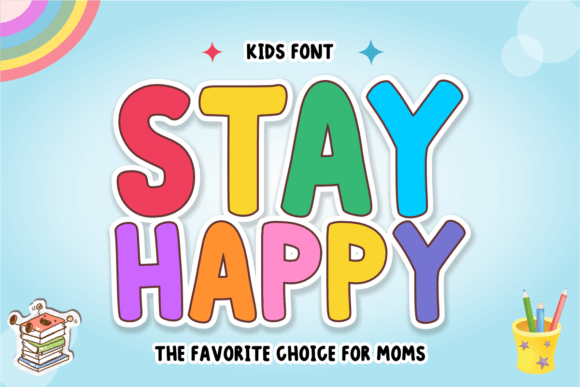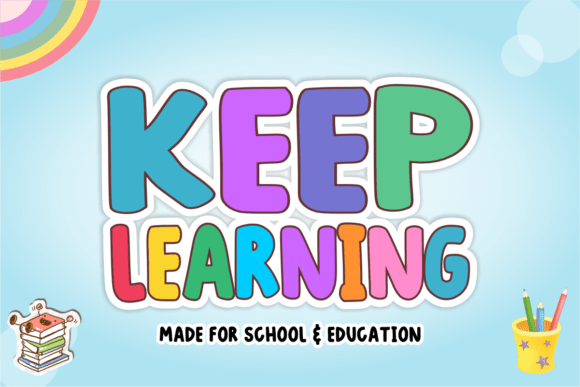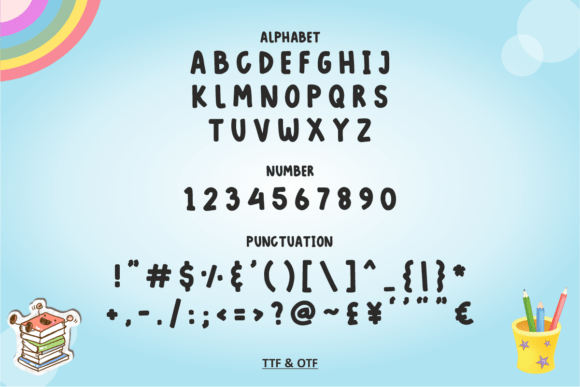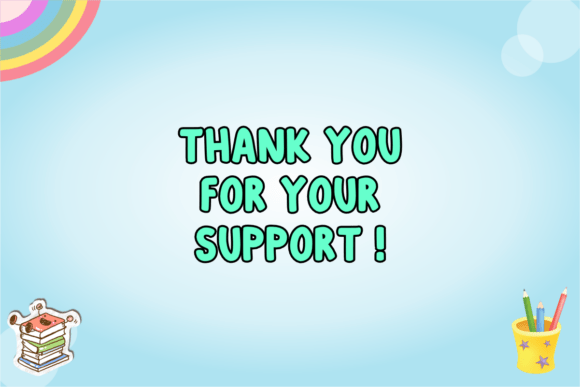
Spread Happiness with Chubby Fun: The Ultimate Playful Font for Kids’ Designs 🍭
Have you ever been in the middle of a design project, and suddenly, you’re stuck on finding the perfect font? I recall a recent experience where I was working on a nursery decor project for a client’s little one, and I just couldn’t find a font that screamed “fun” and “playful” while being easy to read. That’s when I stumbled upon Chubby Fun, a delightful, thick-lettered display typeface that instantly brought joy and approachability to my design.
First Impressions: A Font that Stands Out
Chubby Fun is more than just a font; it’s a design statement. With its soft, rounded curves and chunky, “sticker-like” appearance, it’s an instant standout for any project that needs a friendly and energetic touch. As highlighted in the preview, Chubby Fun is “The Favorite Choice for Moms”, and it’s easy to see why. Its bold and highly legible structure makes it ideal for everything from nursery decor to school assignments, ensuring your message is both fun to look at and easy to read.
Honest Review: The Good and the Quirks
- ✅ Playful and fun: Chubby Fun is the perfect font for designs that require a dash of playfulness and whimsy.
- ✅ Easily legible: The chunky letters make it easy to read, even at smaller sizes.
- ✅ Versatile: Suitable for a wide range of design projects, from digital to print.
- ✅ High-quality design: The font is well-crafted, with attention to detail and a clear focus on aesthetics.
- ⚠️ Limited use in formal designs: Chubby Fun is best suited for informal, playful designs. It may not be the best choice for more formal or professional projects.
- ⚠️ Not ideal for body text: Due to its bold and chunky nature, Chubby Fun is better suited for headings and titles rather than body text.
The Story Behind Chubby Fun: Designer Inspiration
Chubby Fun was designed with the intention of creating a font that would bring joy and approachability to designs. The designer, inspired by the playful nature of childhood, aimed to create a font that would be both fun and easy to read. With its soft, rounded curves and chunky appearance, Chubby Fun is the perfect font for designs that require a friendly and energetic touch.
Q: What is Chubby Fun font best used for?
A: Chubby Fun is best used for designs that require a playful and friendly touch, such as nursery decor, school assignments, and kids’ party invitations.